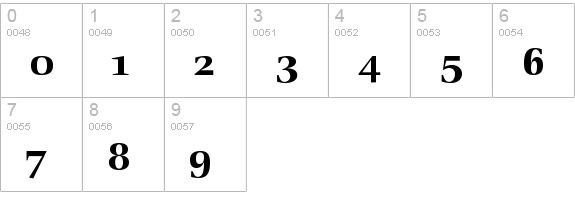
VeljovicEF-BoldOsF Font Details
VeljovicEF-BoldOsF is a bold and captivating typeface designed by Jovica Veljović. With its strong and distinctive letterforms, this font exudes confidence and power, making it perfect for headlines, titles, and branding projects. Its bold weight commands attention and ensures readability even at smaller sizes. The VeljovicEF-BoldOsF font is characterized by its harmonious blend of classic elegance and modern sophistication. The well-balanced proportions of each letter create a visually pleasing and cohesive appearance, making it a versatile choice for a wide range of design applications. One of the most remarkable aspects of the VeljovicEF-BoldOsF font is its availability as a free download at FontsMarket.com. This means that you can easily access and enjoy this exceptional typeface without any cost. Whether you are a professional designer or a design enthusiast, having access to high-quality fonts like VeljovicEF-BoldOsF can significantly enhance your creative projects. The VeljovicEF-BoldOsF font embodies the perfect combination of timeless appeal and contemporary design, making it a valuable addition to any font library. Its bold weight and striking letterforms make it ideal for creating impactful headlines, logo designs, posters, and other visual materials that require a strong and commanding presence. In addition to its aesthetic qualities, the VeljovicEF-BoldOsF font also offers excellent legibility and readability. Each character is meticulously crafted to ensure clarity, even at smaller sizes or in challenging design contexts. This makes it a reliable choice for both print and digital projects, ensuring that your message is effectively communicated to your audience. With its unique blend of elegance, versatility, and readability, the VeljovicEF-BoldOsF font is a must-have for any designer or typographer. Its freely available download at FontsMarket.com allows you to easily incorporate this exceptional typeface into your creative endeavors, adding a touch of sophistication and impact to your designs.